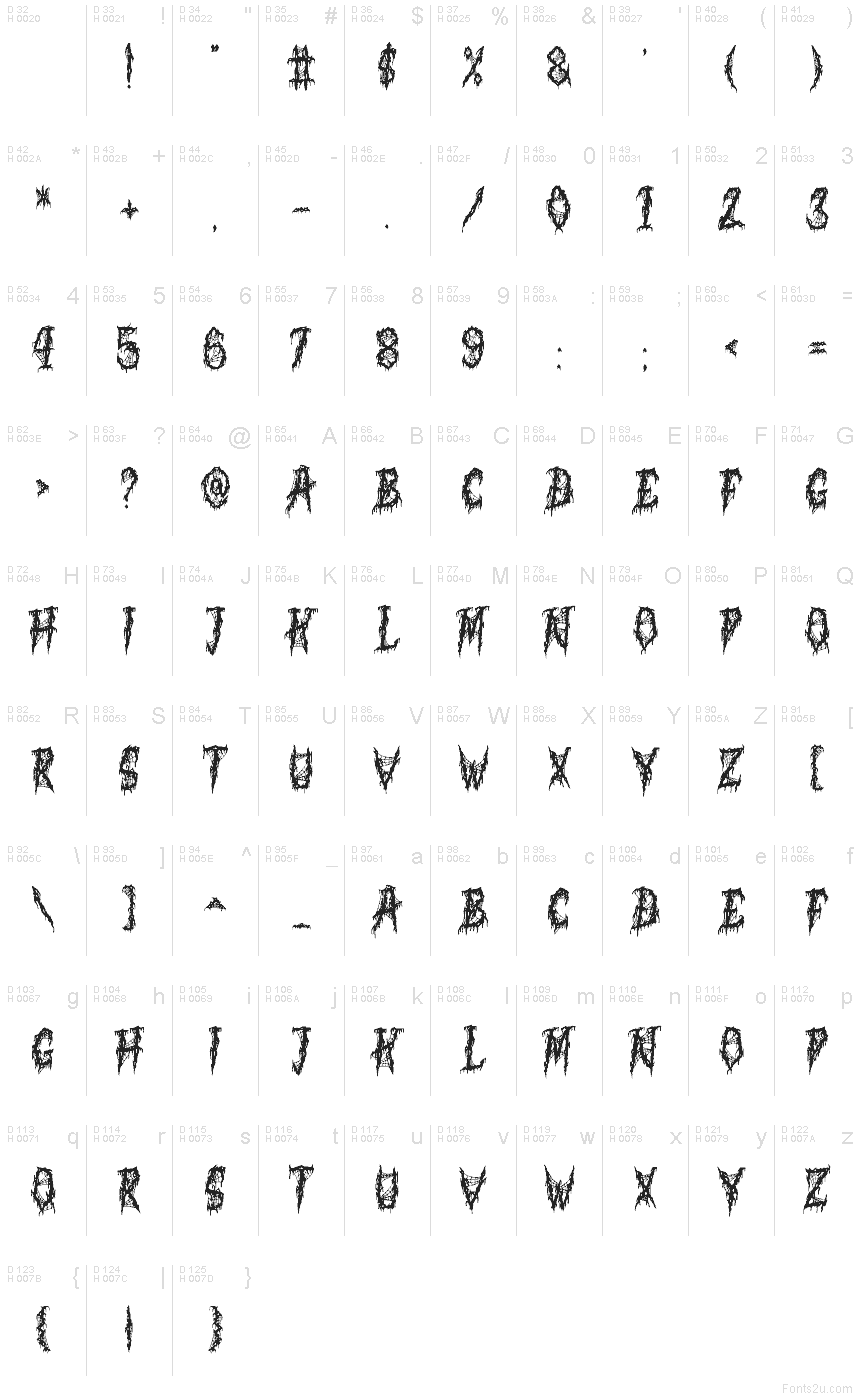
Terror Scream
Terror Scream font by Densu Creative is a free Halloween display font. Its letters look clawed from shadows—ragged edges, cobweb tangles, and ink-drip tails that feel wet and menacing. Set big, and the texture blooms like torn velvet; set smaller, it still reads thanks to its bold skeleton and tight rhythm.
Using Terror Scream, you can nail haunted house flyers, horror movie posters, escape room branding, party invitations, game titles, streaming thumbnails, and eerie event signage. This free font shines most in high-contrast palettes—bone-white on pitch black or slime green on charcoal. Pair with a clean, geometric sans for body copy, and keep tracking snug to intensify the creep.